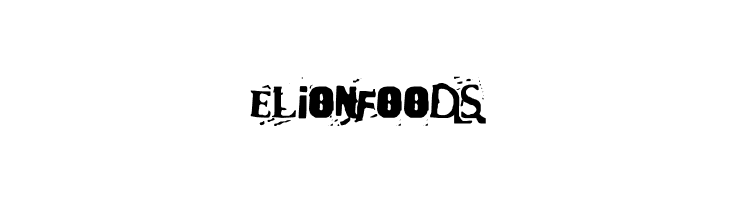
Pussy Electronics Font
- Font: Pussy Electronics
( Fonts by Mr Fisk - Mike Larsson - fontorama.net )
A bold, distressed font with a grungy, textured appearance.